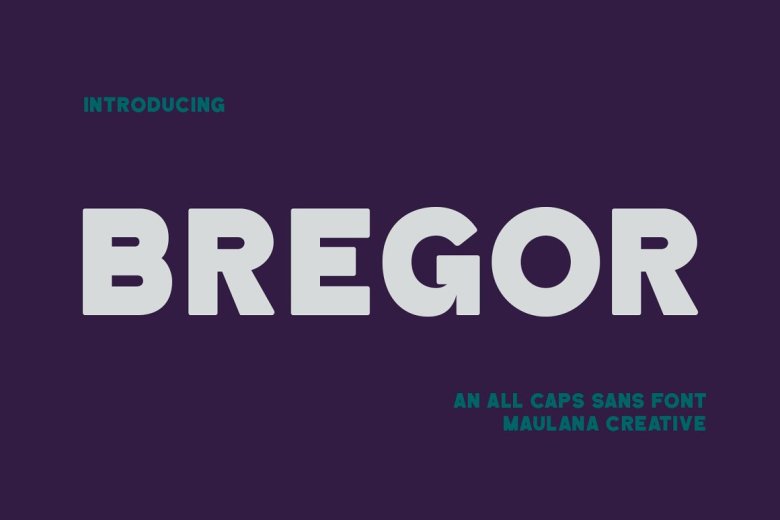
Bregor Font
Bregor is an All caps simply strong sans serif font. with Bold stroke, fun character with a bit of ligatures and alternates to give you an extra creative work. Bregor font support multilingual more than 100+ language. this font is suitable for logo, social media, movie titles, books titles, a short text even a long text letter, and good for your secondary text font with script or serif.Make a stunning work with Bregoe font.
Bregor Sans Display Font